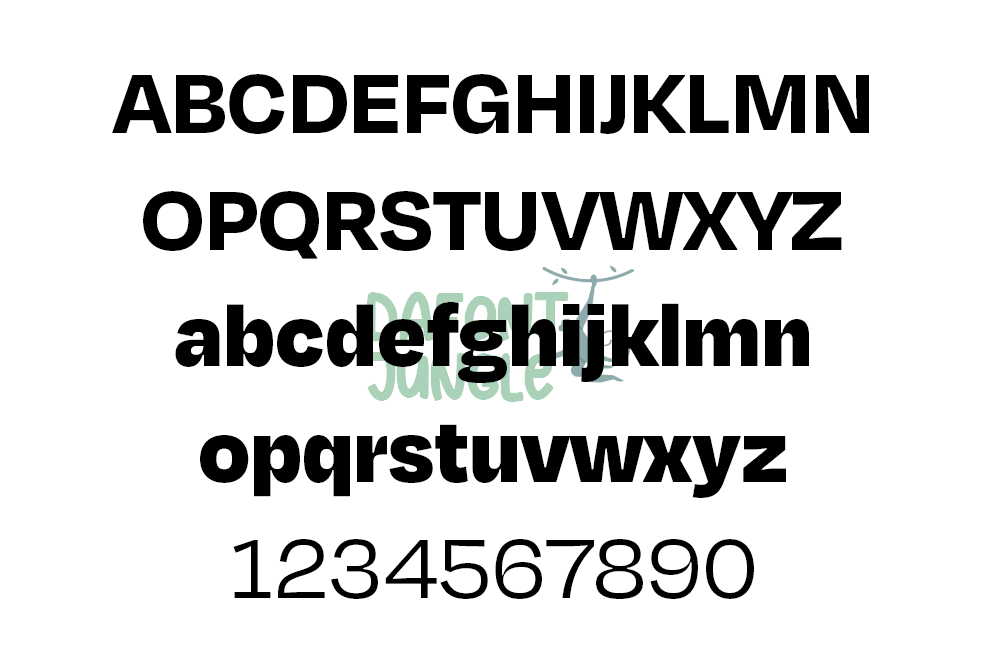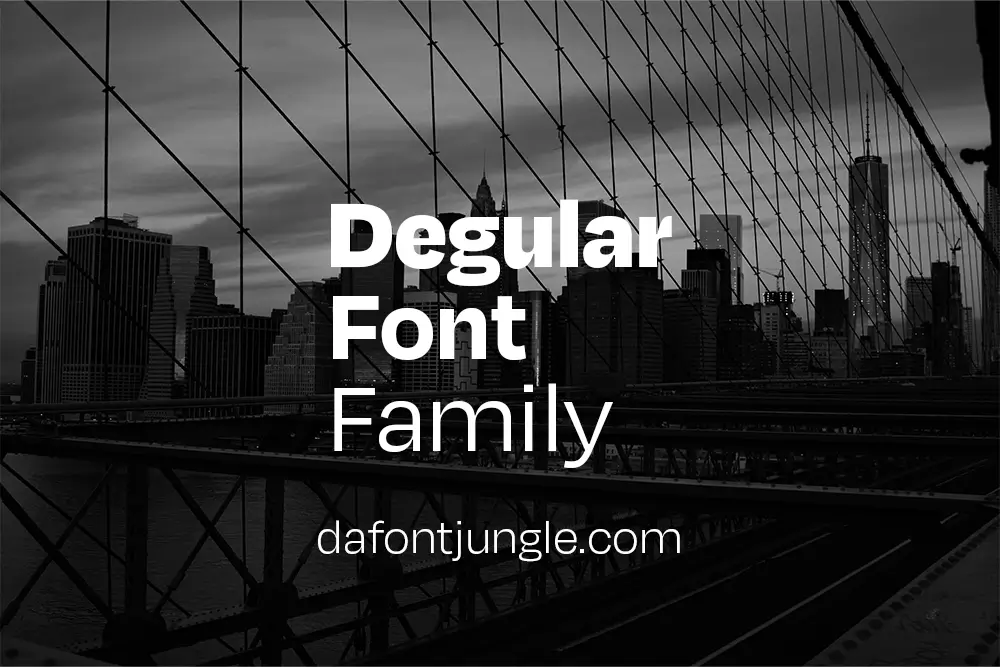
Degular – A Friendly, Professional Sans Serif
Degular is a thoughtfully designed sans serif font by James Edmondson of Ohno Type Co. It feels clean and professional, yet it carries just enough warmth to feel approachable. You can use it confidently in both print and digital projects, from corporate branding to editorial layouts.
Its structure is simple but never boring. Whether you’re setting headlines or body copy, Degular maintains clarity and charm in every size.